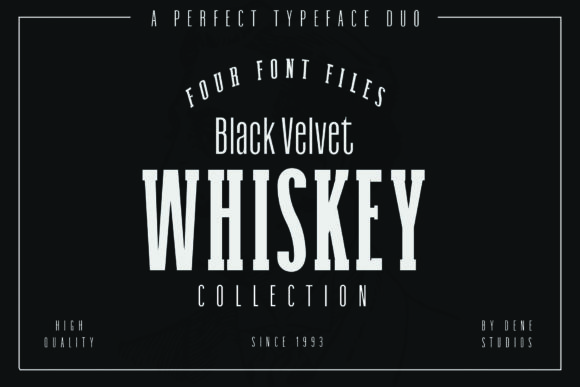
The Vintage Charm of Black Velvet Font
Ah, the elusive perfect font. You know, that one design element that can make or break a project. I recall working on a vintage-themed craft project, pouring my heart and soul into the design, but somehow, it just didn’t feel authentic. The font I was using was the culprit – it was too modern, too sleek, and completely out of place. That’s when I stumbled upon the Black Velvet Font✨, and let me tell you, it was love at first sight!
- ✨ The old-timey look that instantly adds a touch of nostalgia to any design
- 💫 Works beautifully for both display and short text elements
- 🎨 The unique character shapes that give it a distinct personality
While I adore Black Velvet Font, it’s not without its quirks 🤔. For instance:
- ⚠️ It might not be the best choice for very long text blocks, as it can become a bit tedious to read
- ⚠️ Some characters, like the lowercase ‘a’ and ‘e’, have a slightly condensed look, which might affect kerning
- Experiment with OpenType features, such as stylistic alternates, to add more character to your text
- Explore the glyphs panel to access alternate characters, ligatures, and other OpenType features
The Backstory Behind Black Velvet Font
Legend has it that Black Velvet Font was inspired by the opulent fabrics of the Victorian era. The font’s creator aimed to capture the essence of old-timey charm, with its intricate character shapes and elegant lines. While we can’t confirm the exact story, one thing is certain – Black Velvet Font is a design gem that’s sure to add a touch of vintage magic to any project.
| What type of projects is Black Velvet Font best suited for? | Black Velvet Font is perfect for vintage-themed projects, such as craft designs, posters, and packaging. |
| Is Black Velvet Font suitable for body text? | While it’s legible, Black Velvet Font is best used for display text or short paragraphs. For longer text blocks, consider a more traditional serif font. |